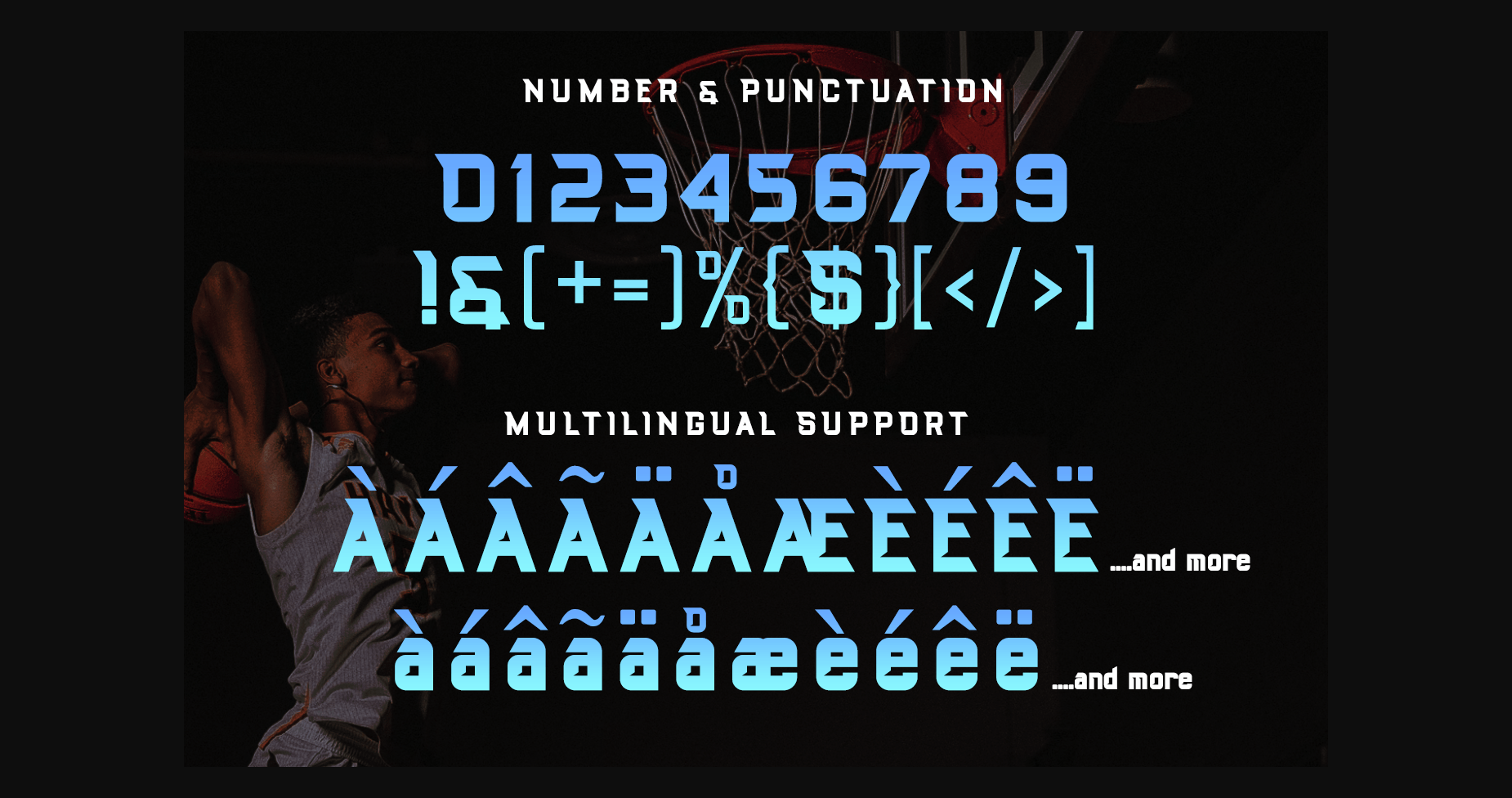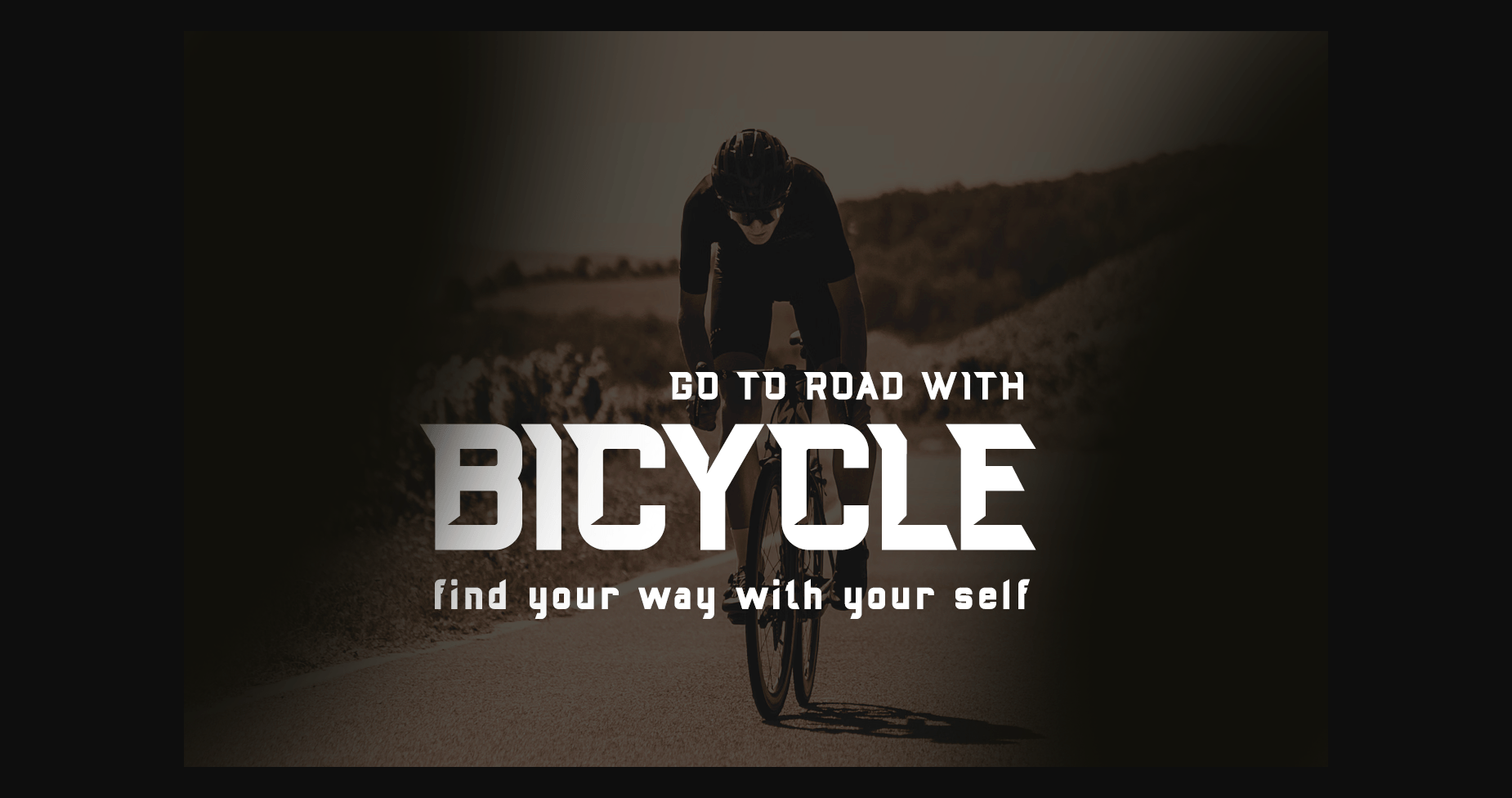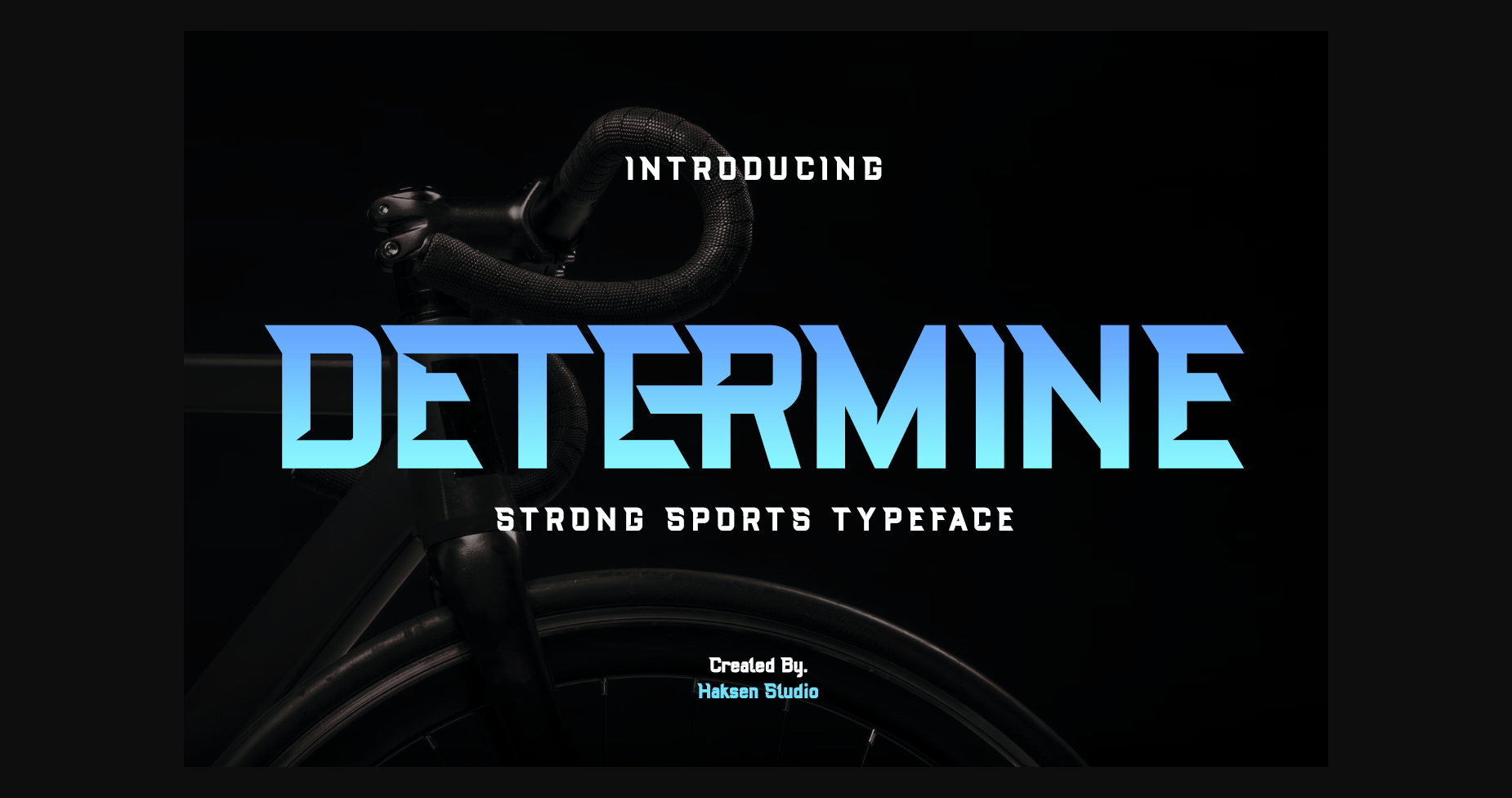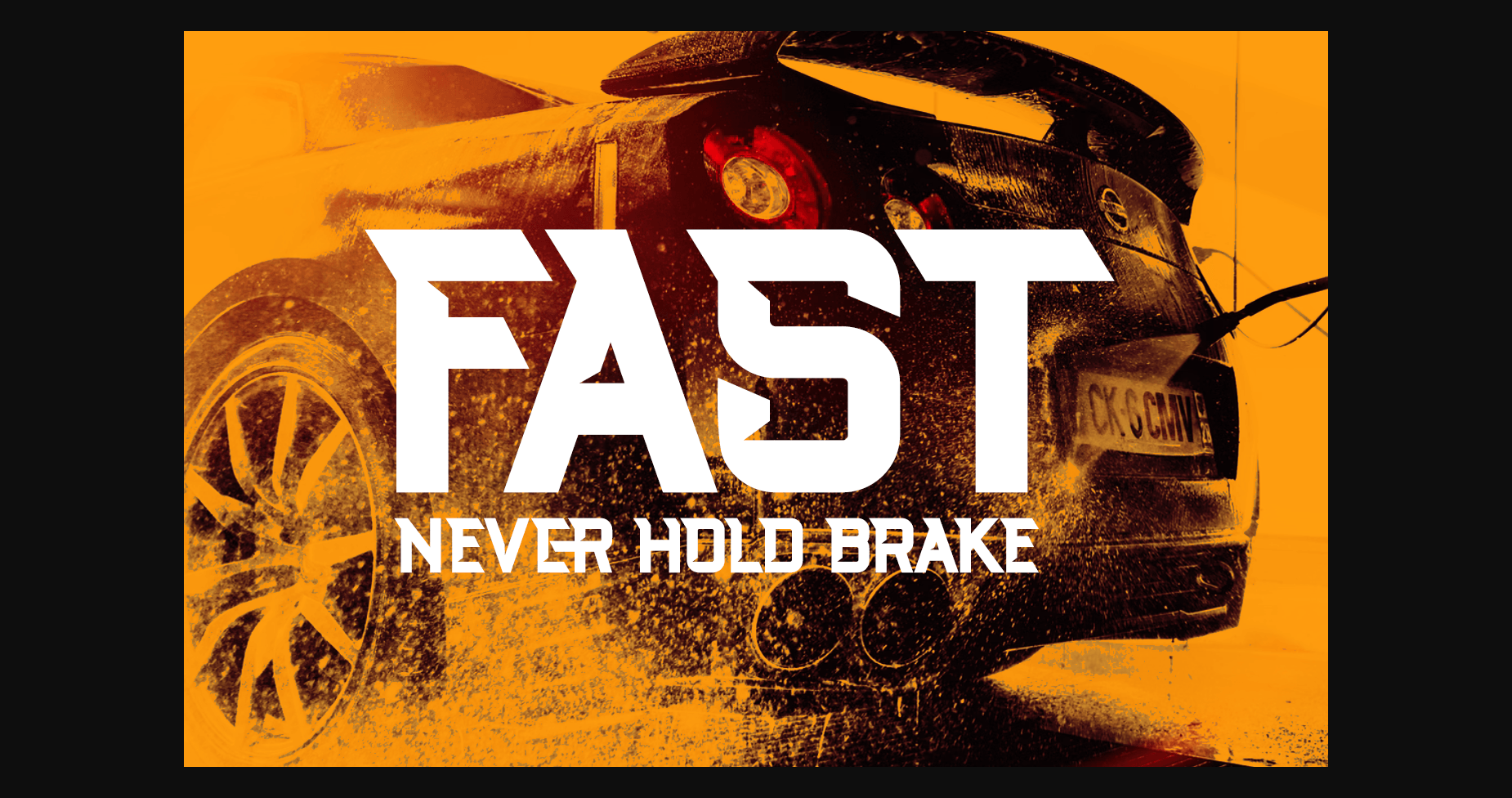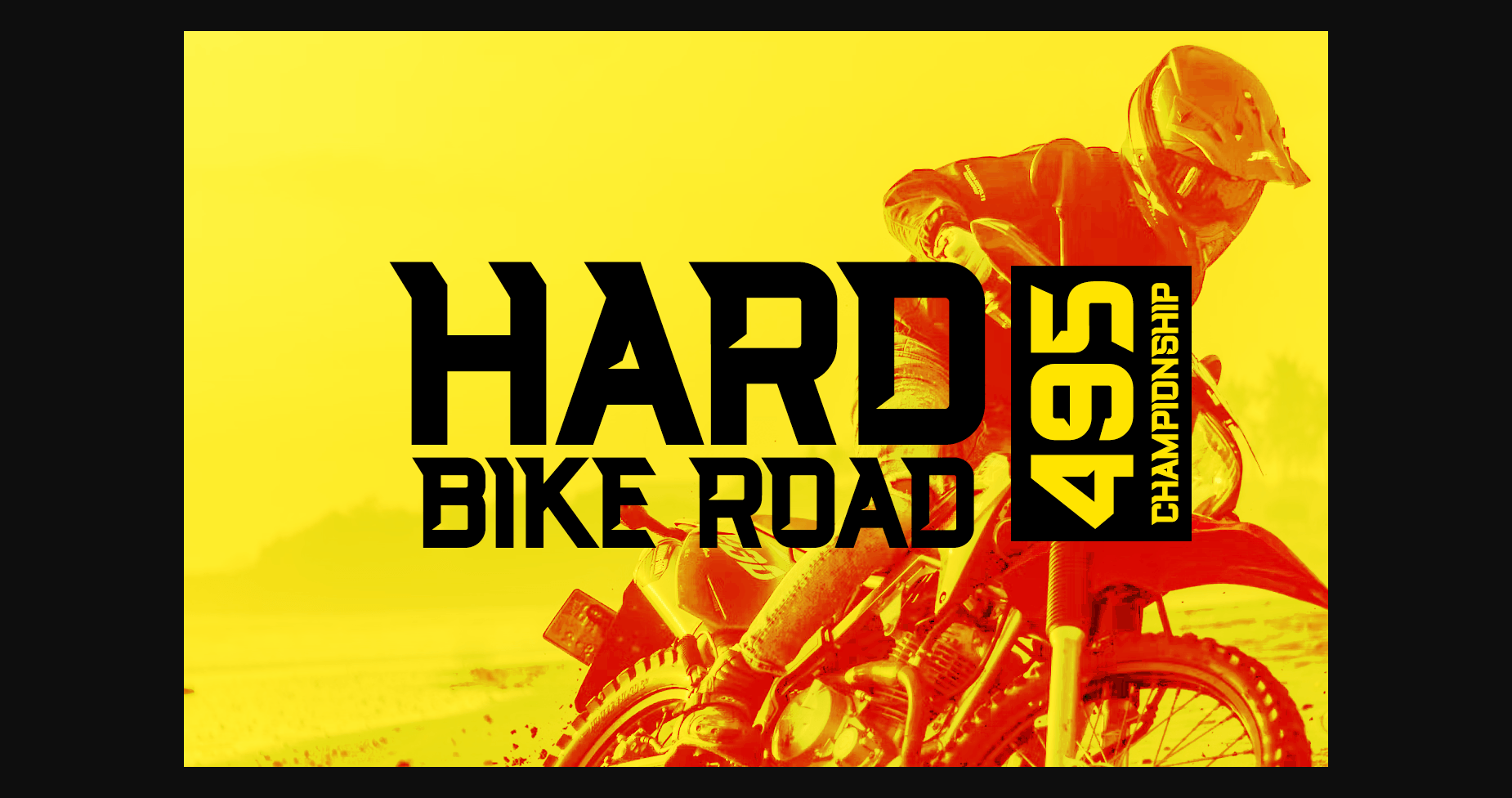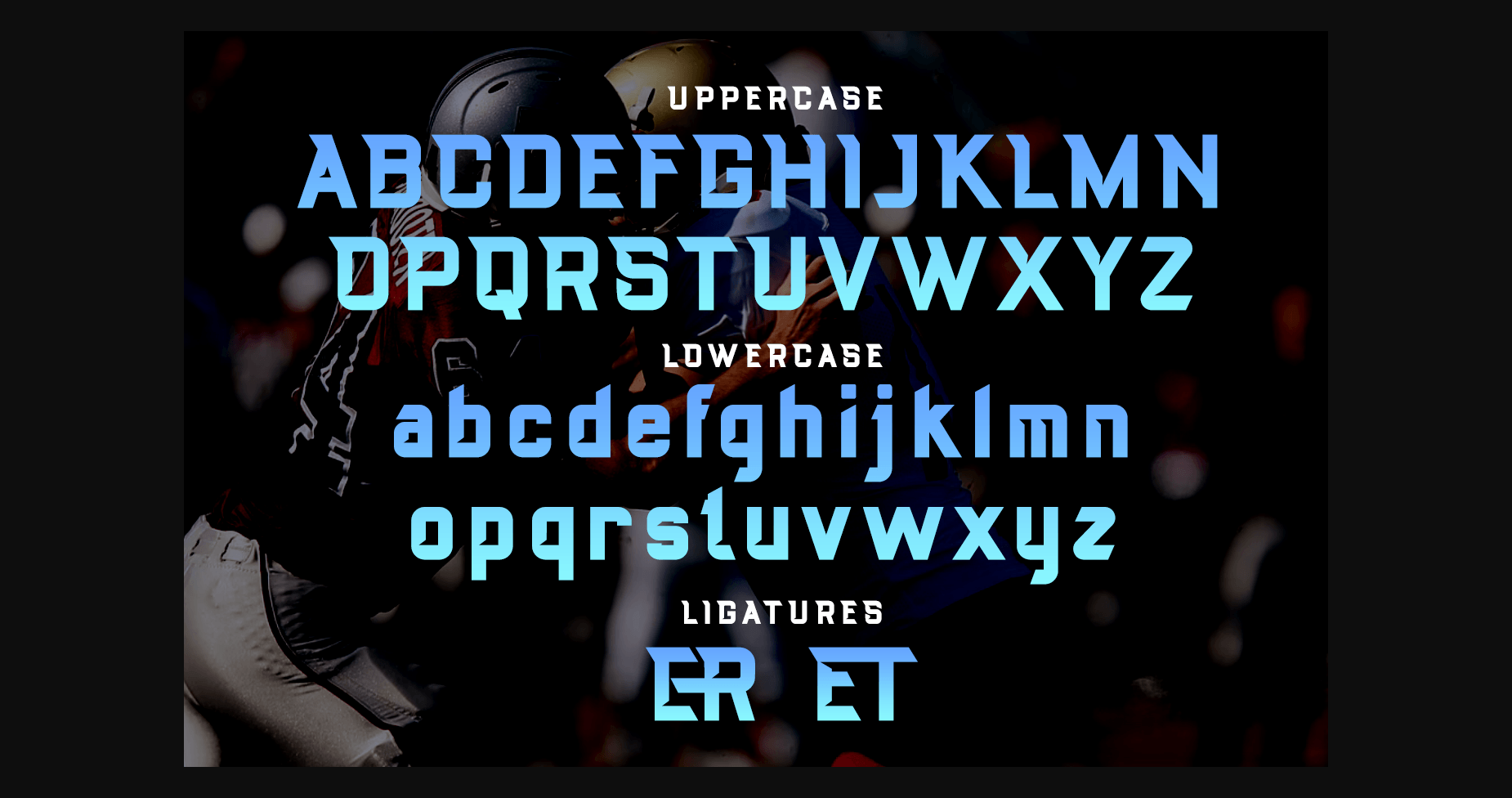
Determine Font
About Determine Font
DETERMINE is a strong modern sans serif style with All Caps that feels nice and balanced. Its wide range of uppercase ligatures allows versatile design options and works perfectly for headlines, logos, posters, packaging, T-shirts, and much more.